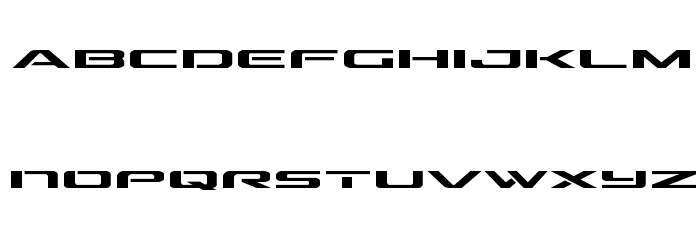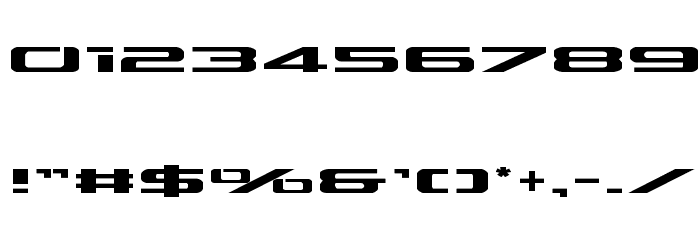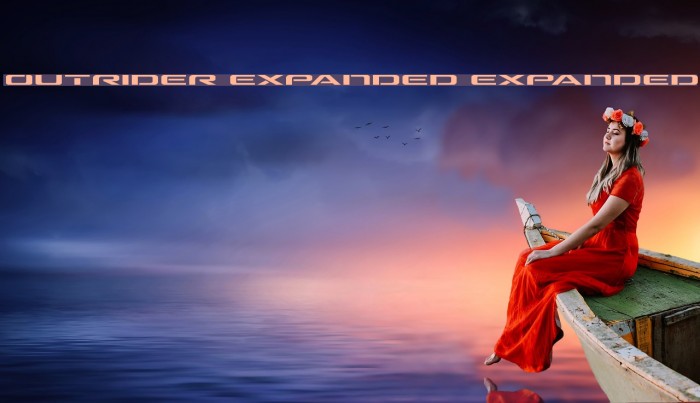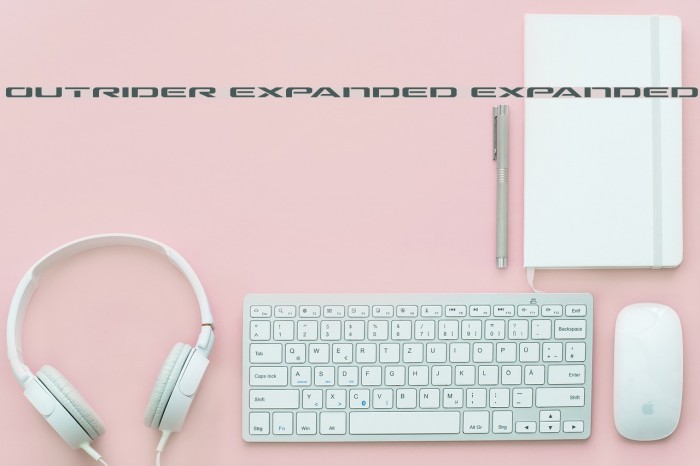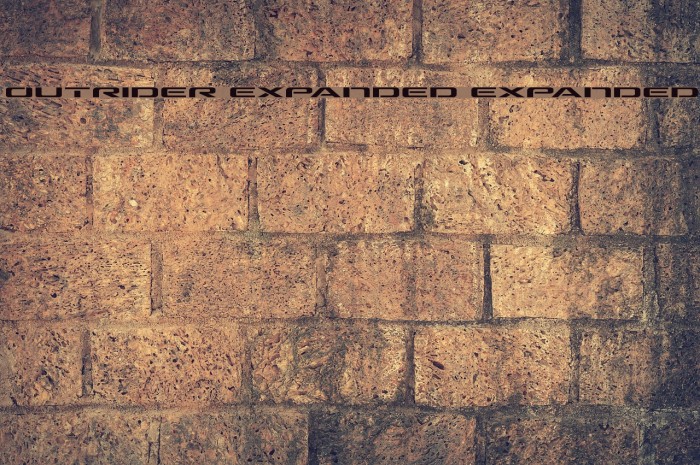
Outrider Expanded Font
This font features a futuristic and geometric design with sharp angles and a bold presence. The characters are wide and expanded, giving a sense of modernity and strength. The uppercase letters are particularly striking, with a uniform height and consistent spacing. The lowercase letters maintain the same stylistic elements, ensuring cohesion throughout the typeface. Numbers and special characters are designed to match the overall aesthetic, making this font versatile for various applications. The clean lines and distinct shapes make it ideal for projects that require a contemporary and impactful look.
A futuristic, geometric font with bold, expanded characters.
- Proposed Projects: Ideal for sci-fi themed designs, technology branding, video game titles, and modern posters.